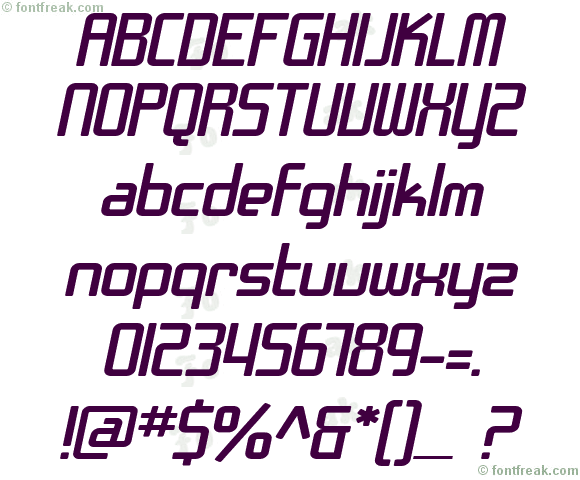
SF Chrome Fenders Condensed
SF Chrome Fenders Extended Oblique
SF Chrome Fenders Condensed Oblique
SF Chrome Fenders Oblique
SF Chrome Fenders Bold Oblique
SF Chrome Fenders Extended
SF Chrome Fenders Bold
SF Chrome Fenders
Introducing Chrome Fenders, a striking typeface from Shyfonts Type Foundry that embodies a bold, condensed style perfect for a wide array of design needs. This freeware font, released under copyright in 2000, showcases a unique blend of extended and oblique elements, offering a modern twist on classic typography. The letters are crafted with a medium to heavy stroke weight, creating a strong visual presence, while the sleek lines and minimal contrast ensure clarity and legibility. The spacing is well-balanced, allowing for seamless readability, making it an excellent choice for both headlines and body text.
Chrome Fenders shines in various applications, particularly in eye-catching projects such as movie posters, where its dynamic character can grab attention and convey excitement. Additionally, this font is ideal for branding small businesses, giving logos and promotional materials a contemporary edge. Graphic designers will find it particularly useful for creating striking event flyers and advertisements, while content creators can enhance their digital projects and social media graphics with its distinctive flair.
Targeted at graphic designers, small business owners, and content creators alike, Chrome Fenders is versatile enough to suit a range of creative endeavors. Its unique design elements make it stand out in a crowded font marketplace, giving users the opportunity to express their brand’s personality in a memorable way.